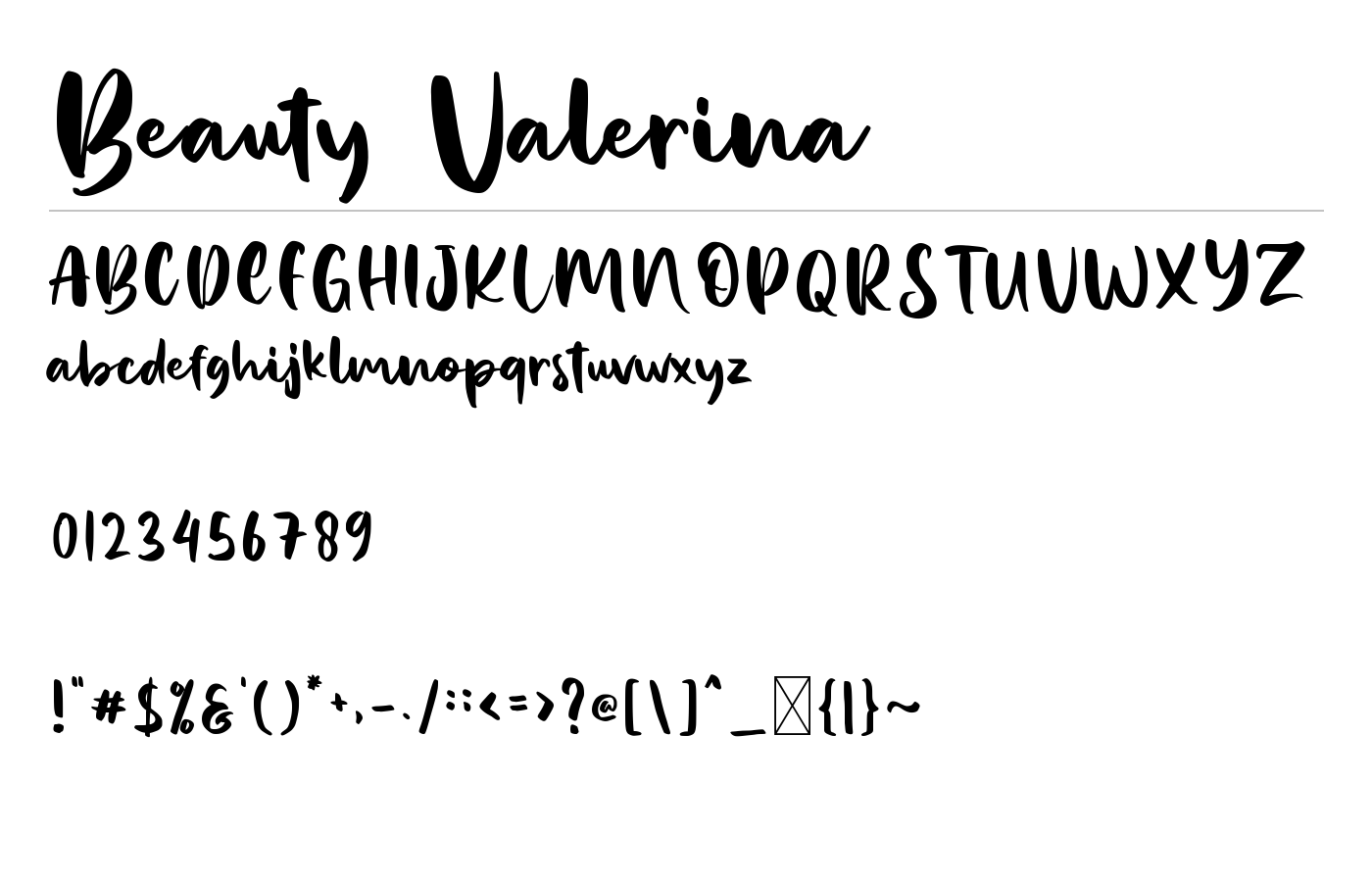
Beauty Valerina is a playful and modern handwritten script font with a bold weight and smooth, rounded strokes that give it a friendly and approachable feel. Its lively letterforms, featuring high contrast in stroke thickness and open, airy spacing, make it ideal for creative branding, invitations, and casual headlines where a personal touch is desired. This font works beautifully for designs that seek to convey warmth, creativity, and a stylish, informal vibe.
Beauty Valerina Font
About Beauty Valerina Font